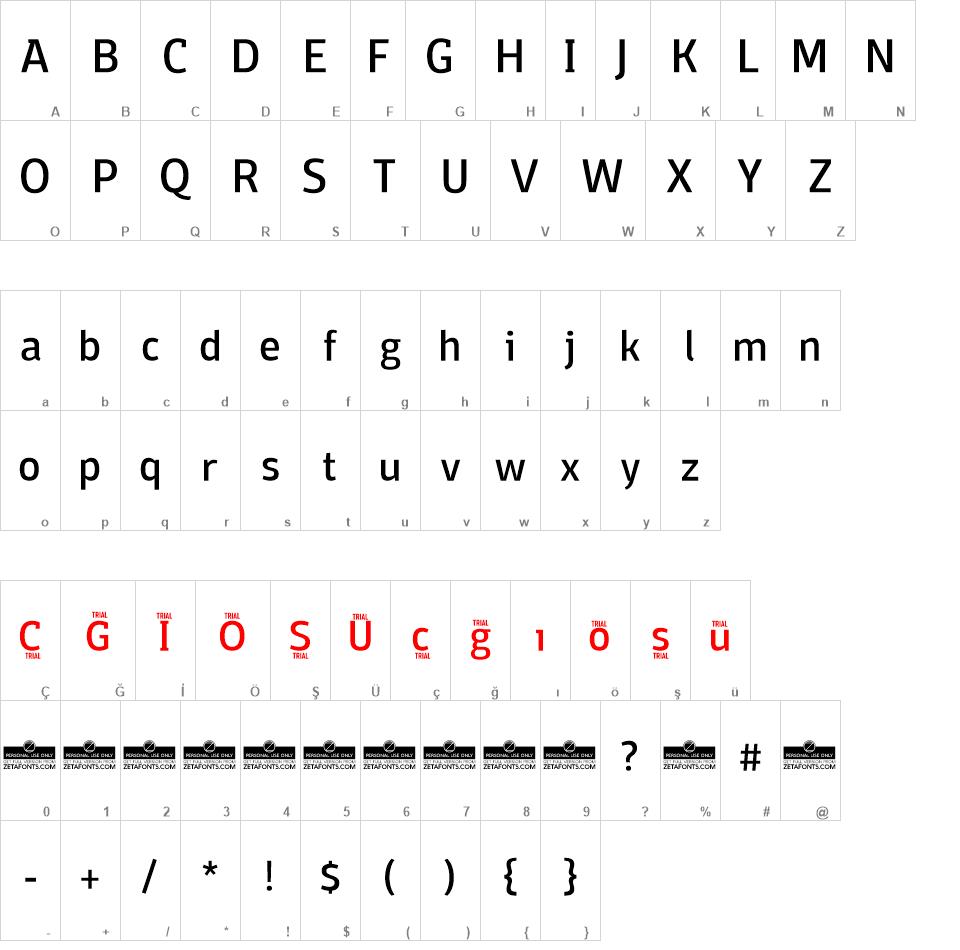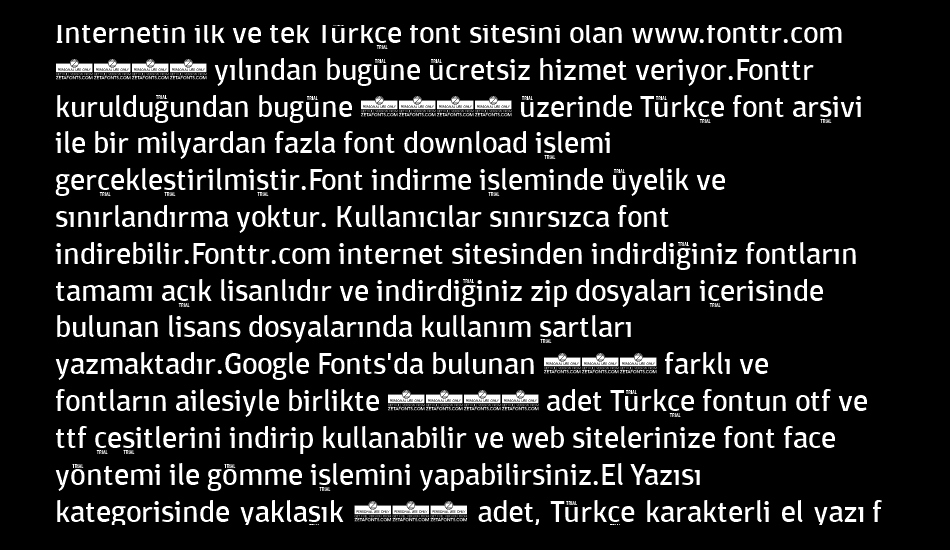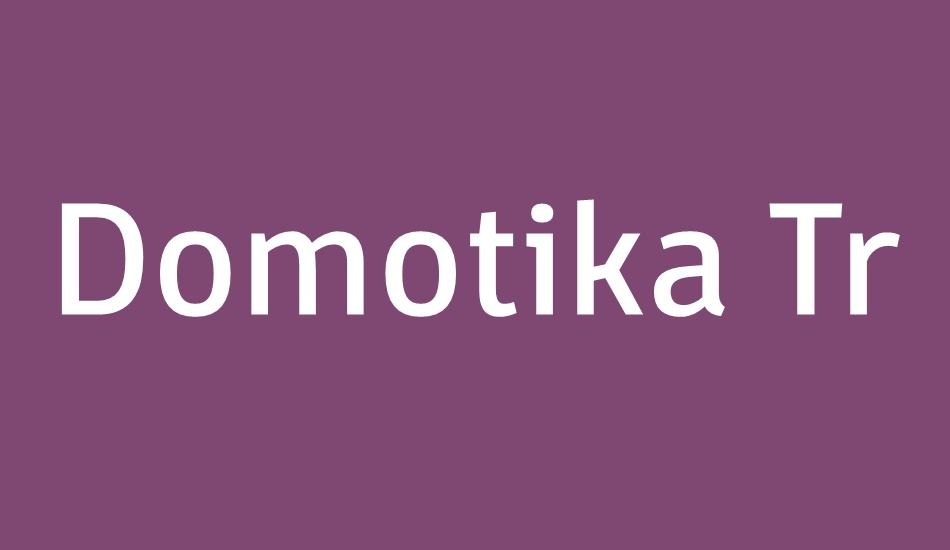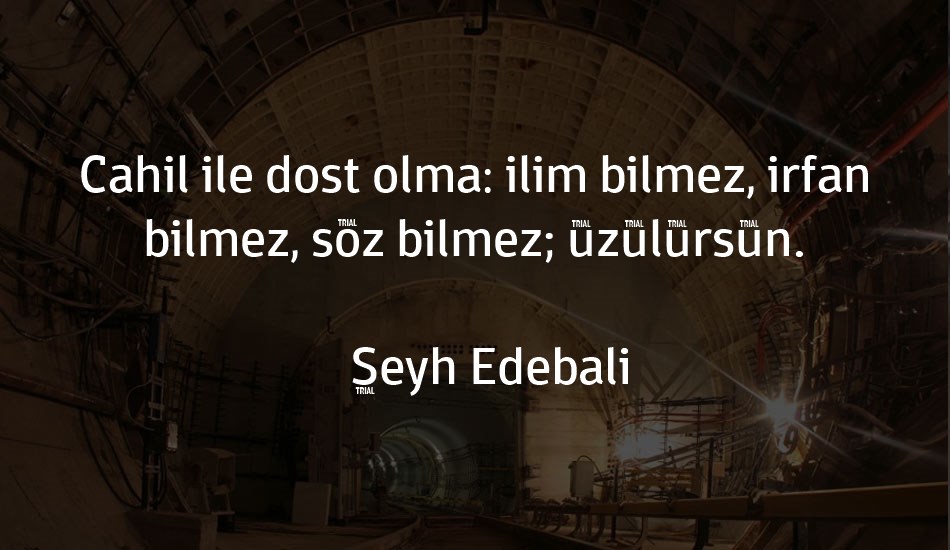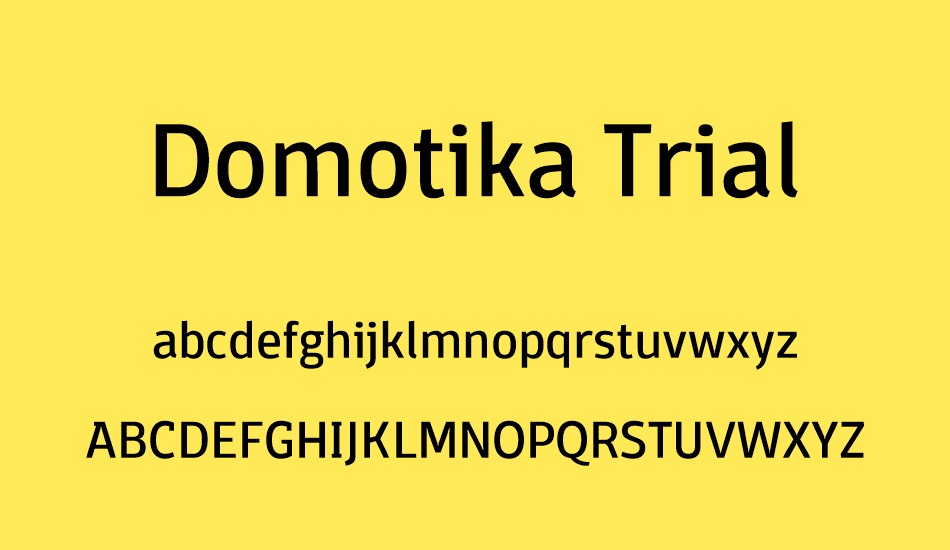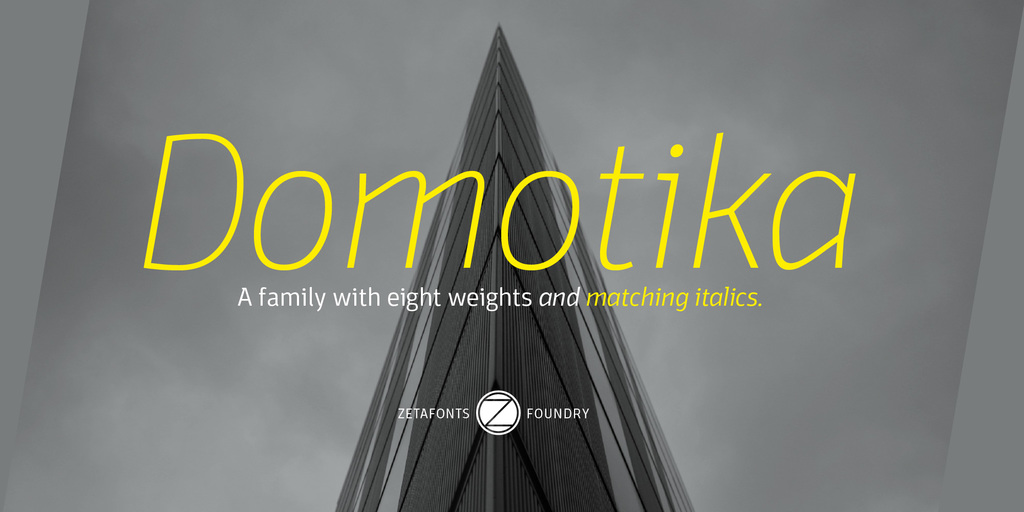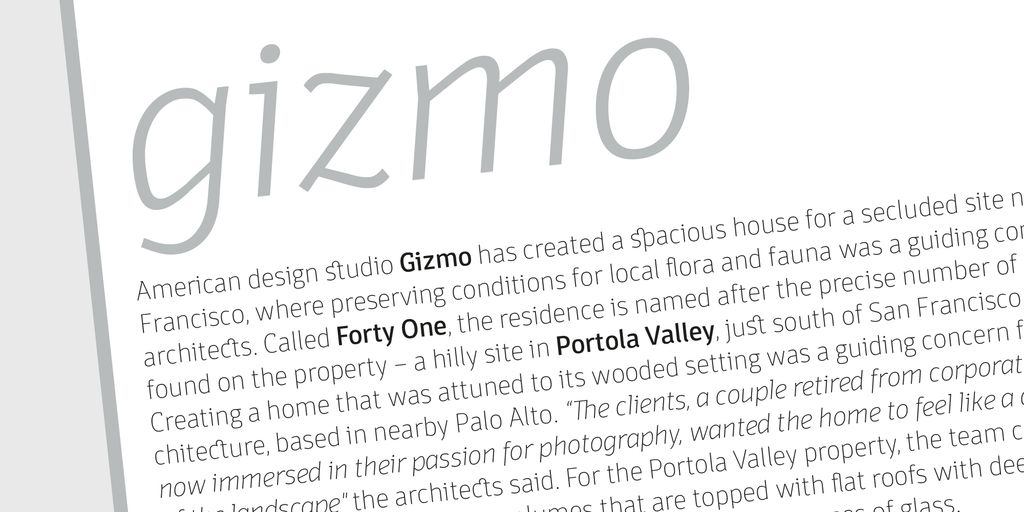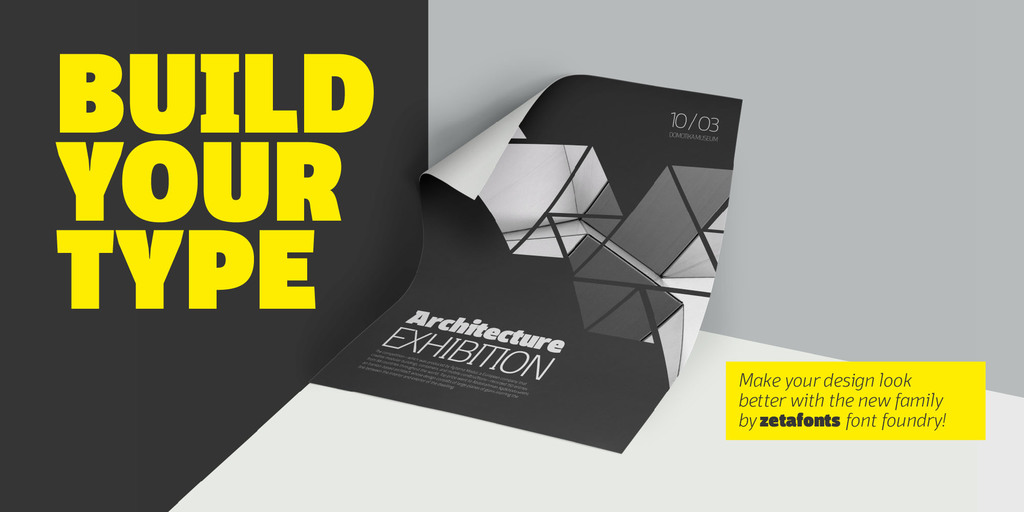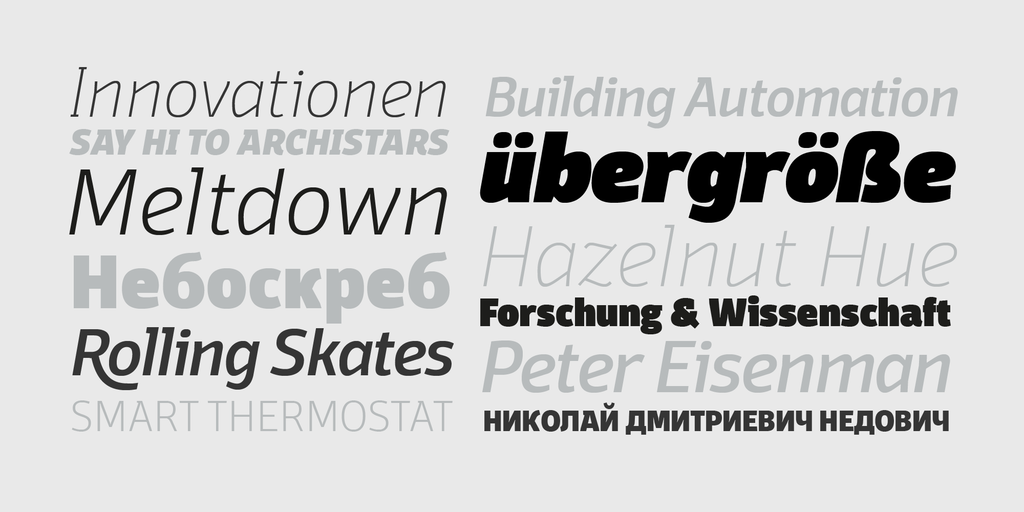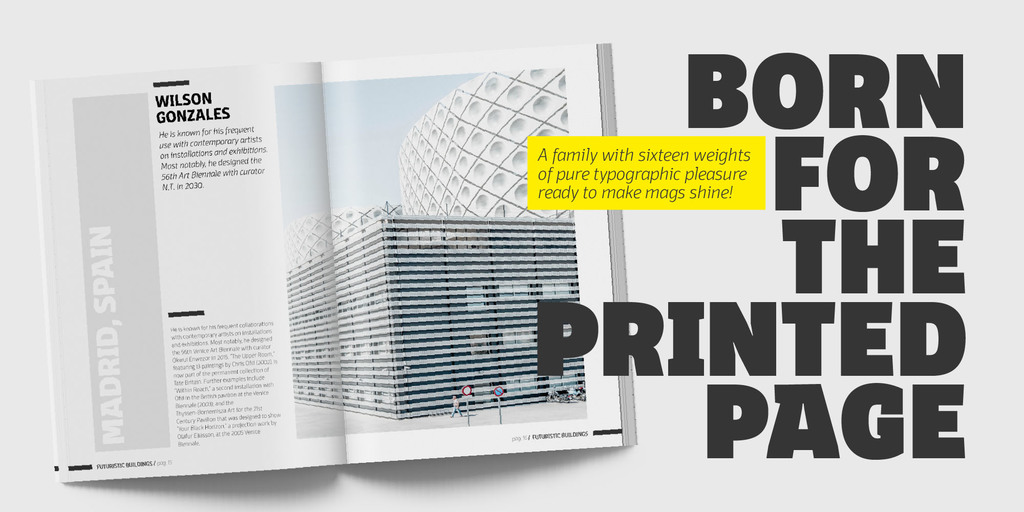
domotika font
Domotika Fonts
Domotika is a typeface family designed by Cosimo Lorenzo Pancini, with italics designed by Andrea Tartarelli. It's a humanist sans serif font, with a semi-condensed feel, great for editorial and display usage where readability and personality must match convenient space usage.
Taking inspiration from architectural practice, the design of the typeface is ruled by the continuous interplay between the classical and the contemporary, the hand-made and the technological. So, the design of the roman juxtaposes the clean, modern design and the typographical choice of two storey lowercase "a" and "g" to slight calligraphic endings to curves; while in the italic the curves sport sharper bends that give a technical appeareance to the shapes, much more callligraphic in nature. The name itself is a pun to the idea of "domotics", robotic technology for use in the home.
Conceived as a great tool for editorial use, Domotika comes in eight weights, with matching italics, each covering over 70 languages using the latin and cyrillic alphabets. Standard open type features include stylistic sets for alternates, tabular, lining and oldstyle numerals, standard and discretionary ligatures and swash forms.